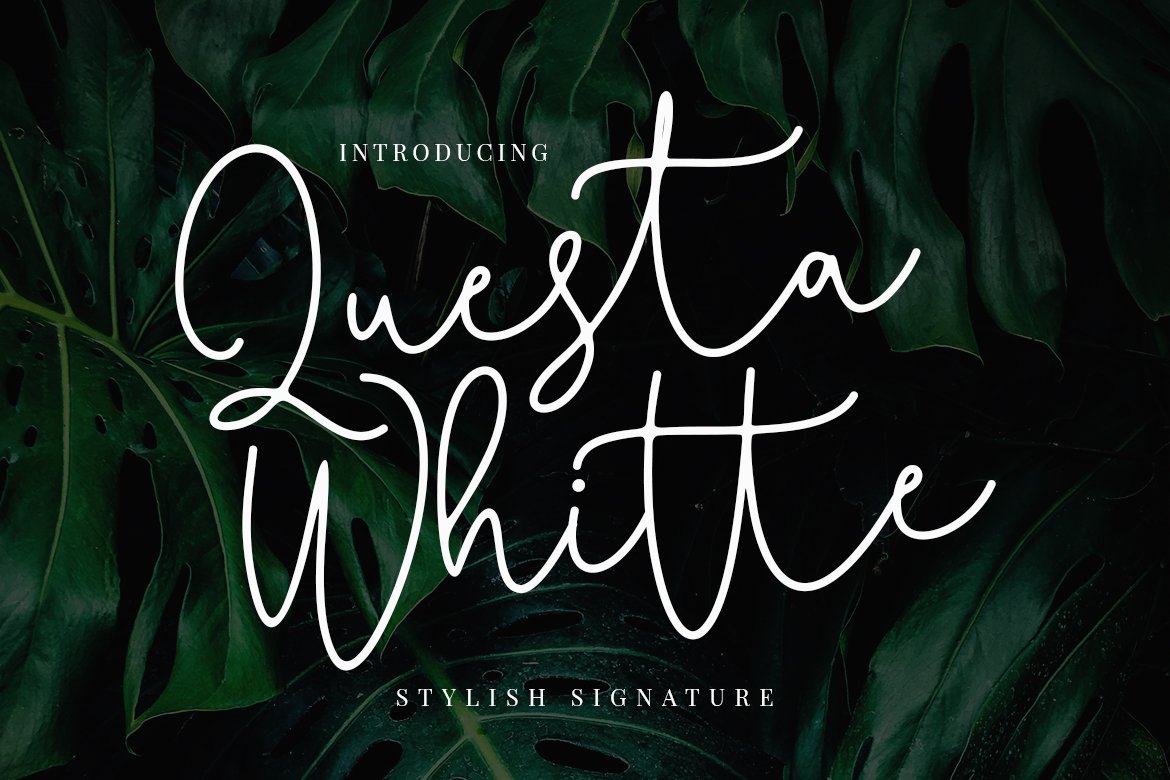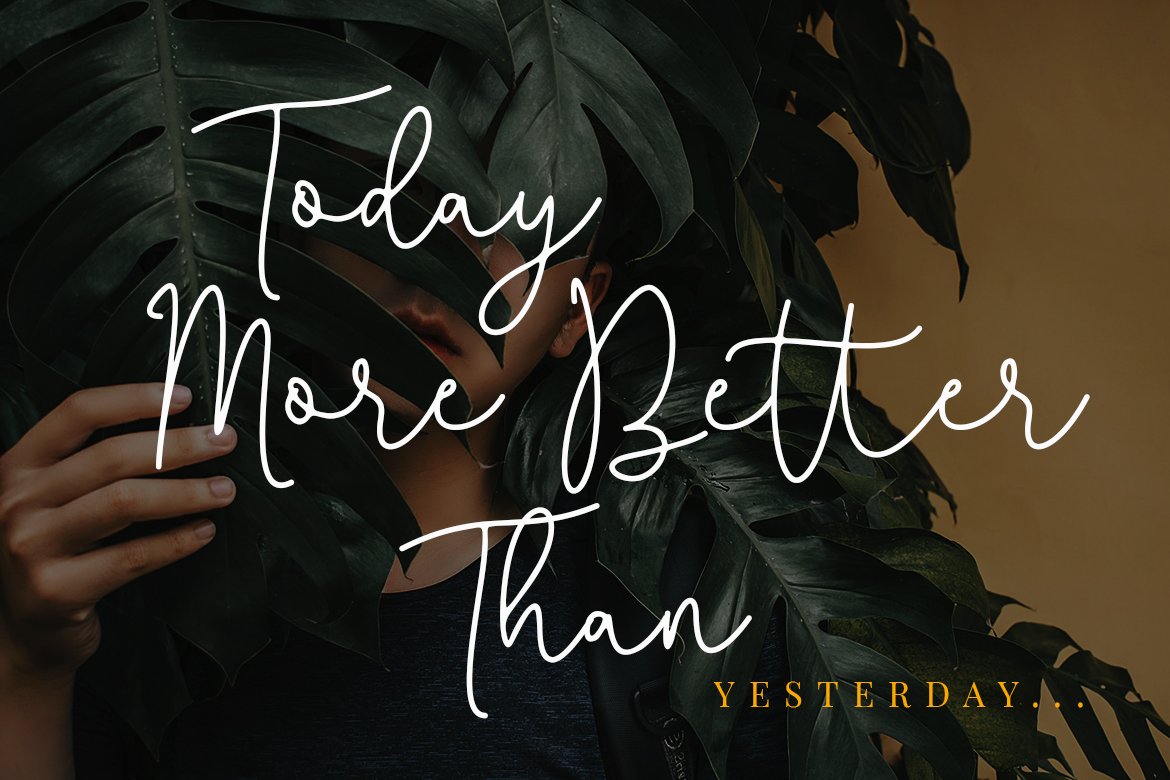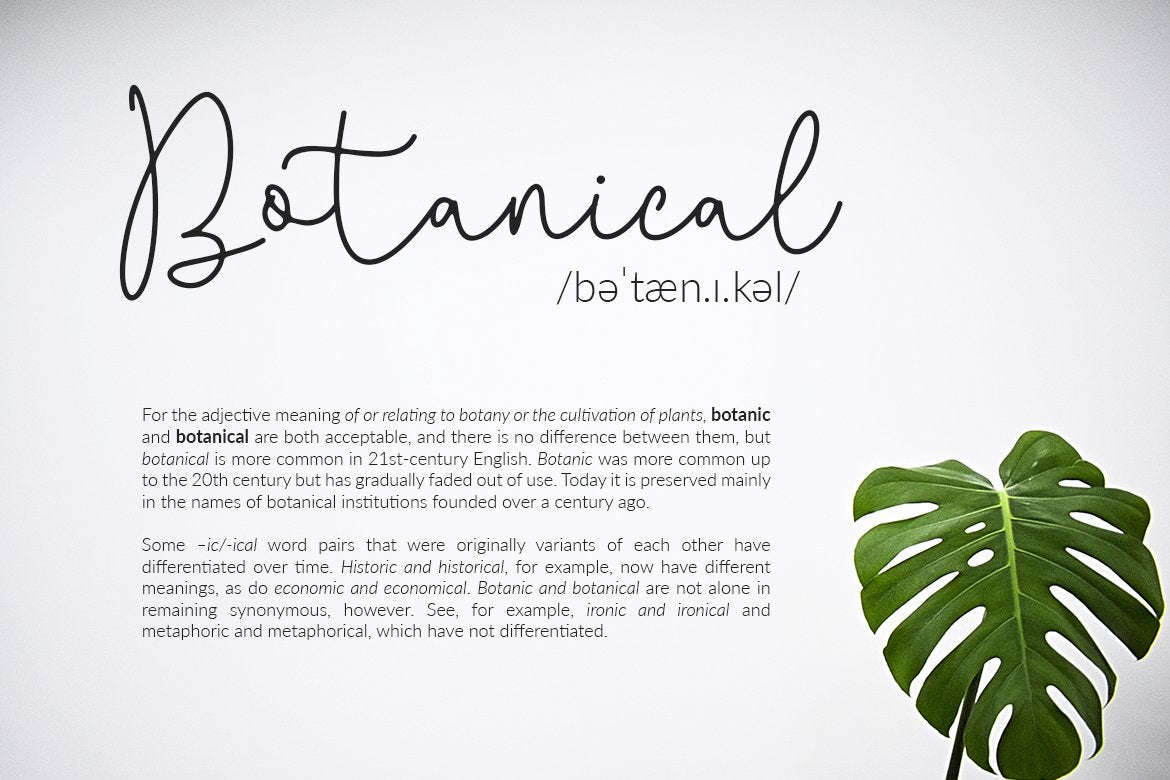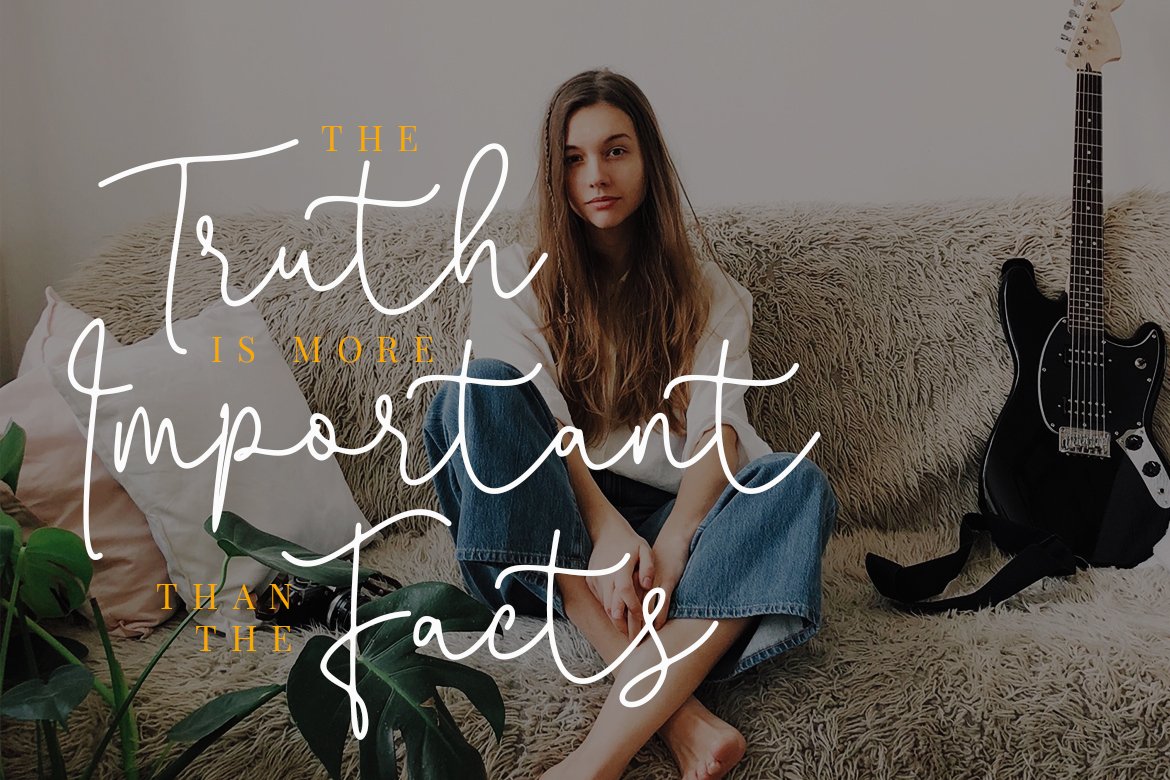
We're glad to feature this awesome Questa Whitte - Free Handwritten Script Font. Crella has featured this amazing and beautiful free typeface. Amaze your fellow designers and create stunning designs with this cool font.